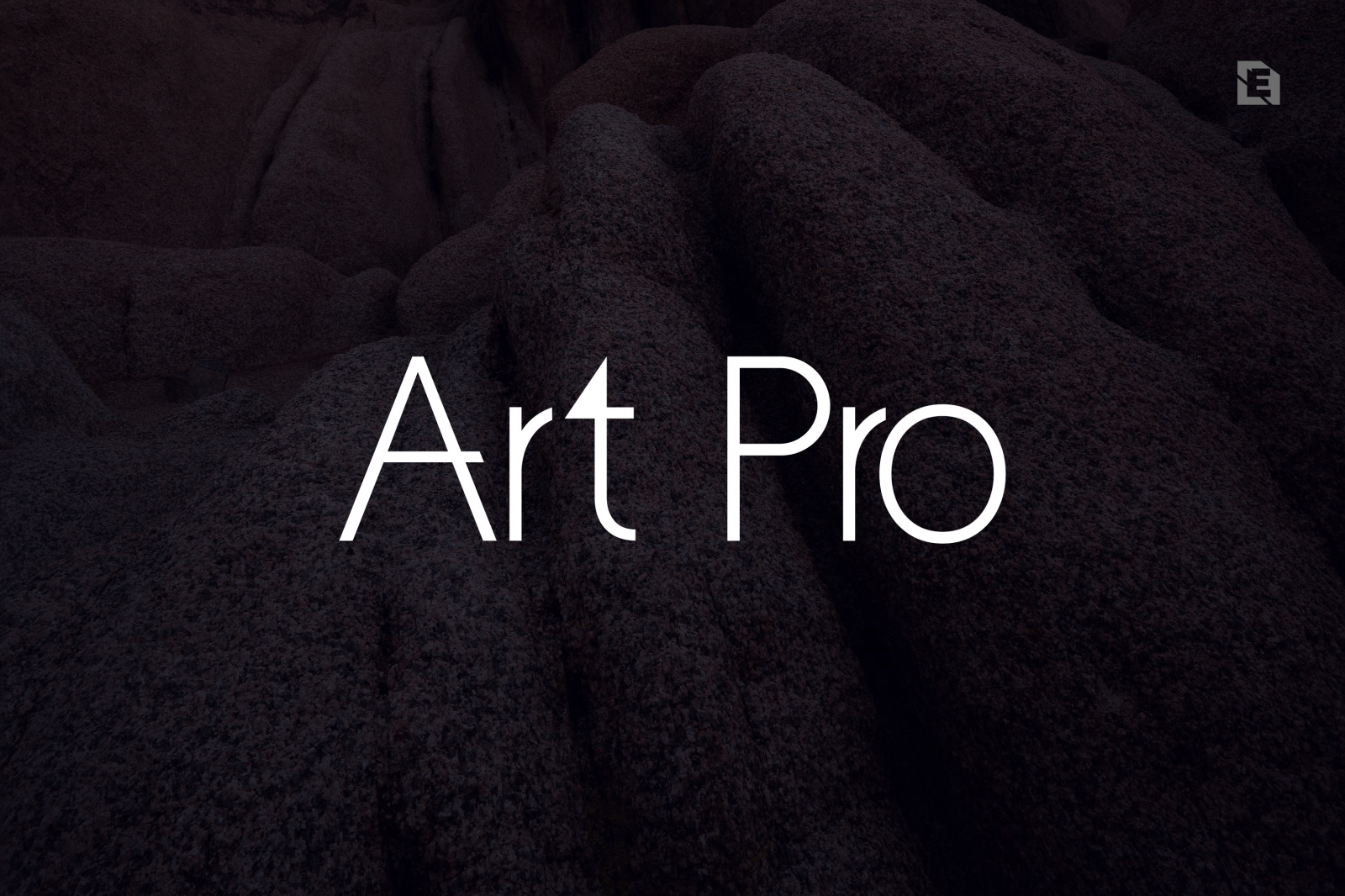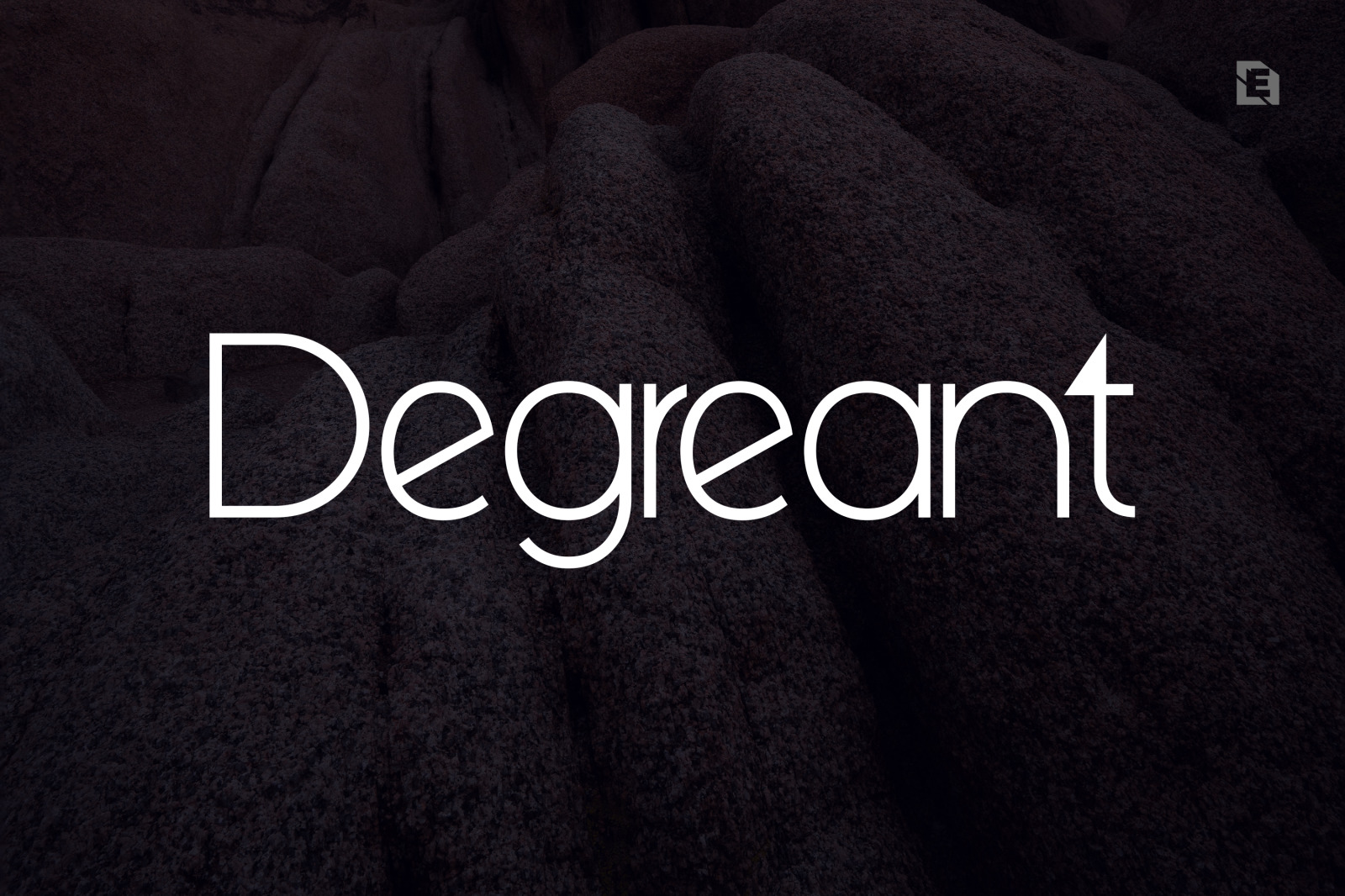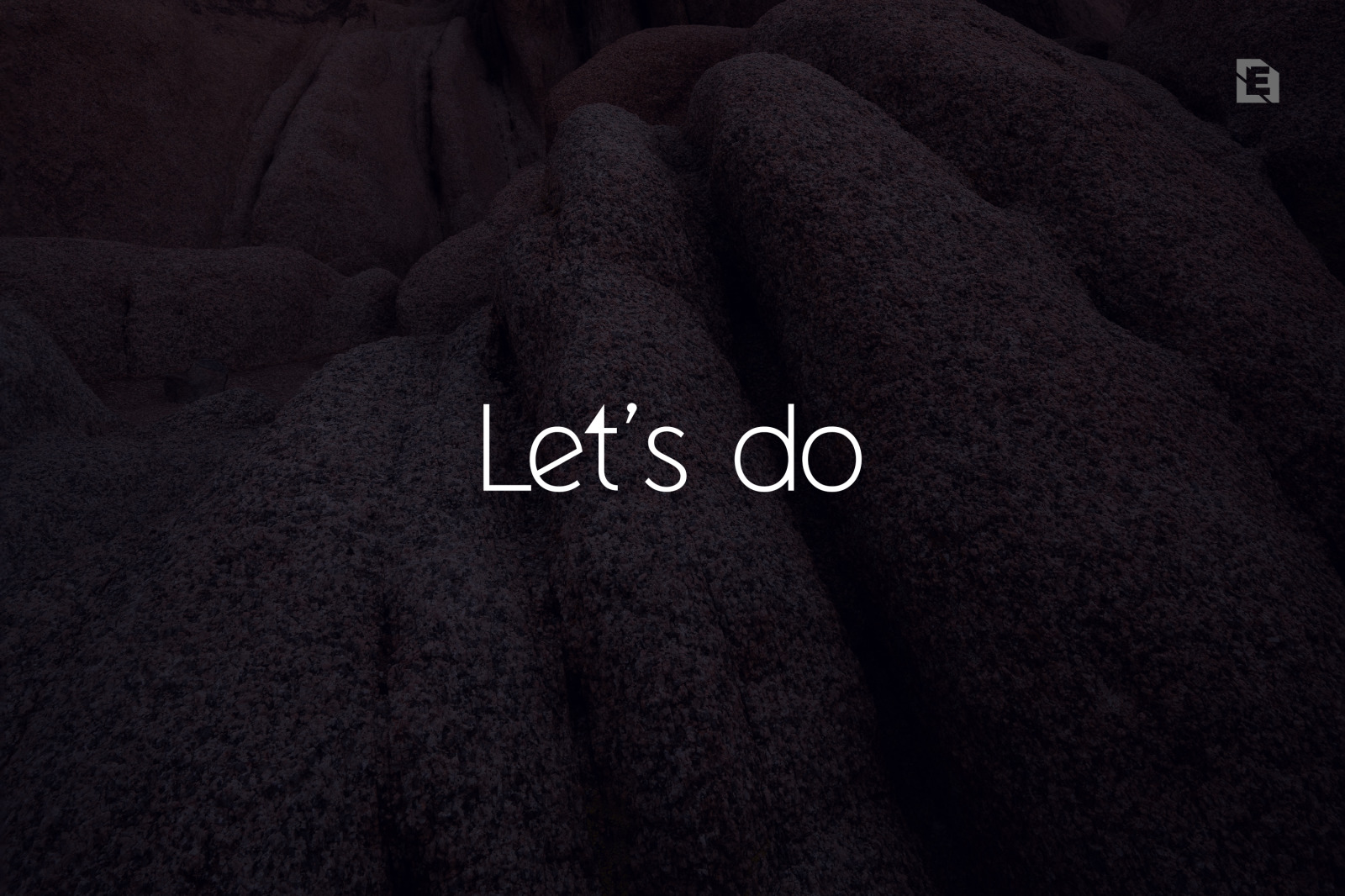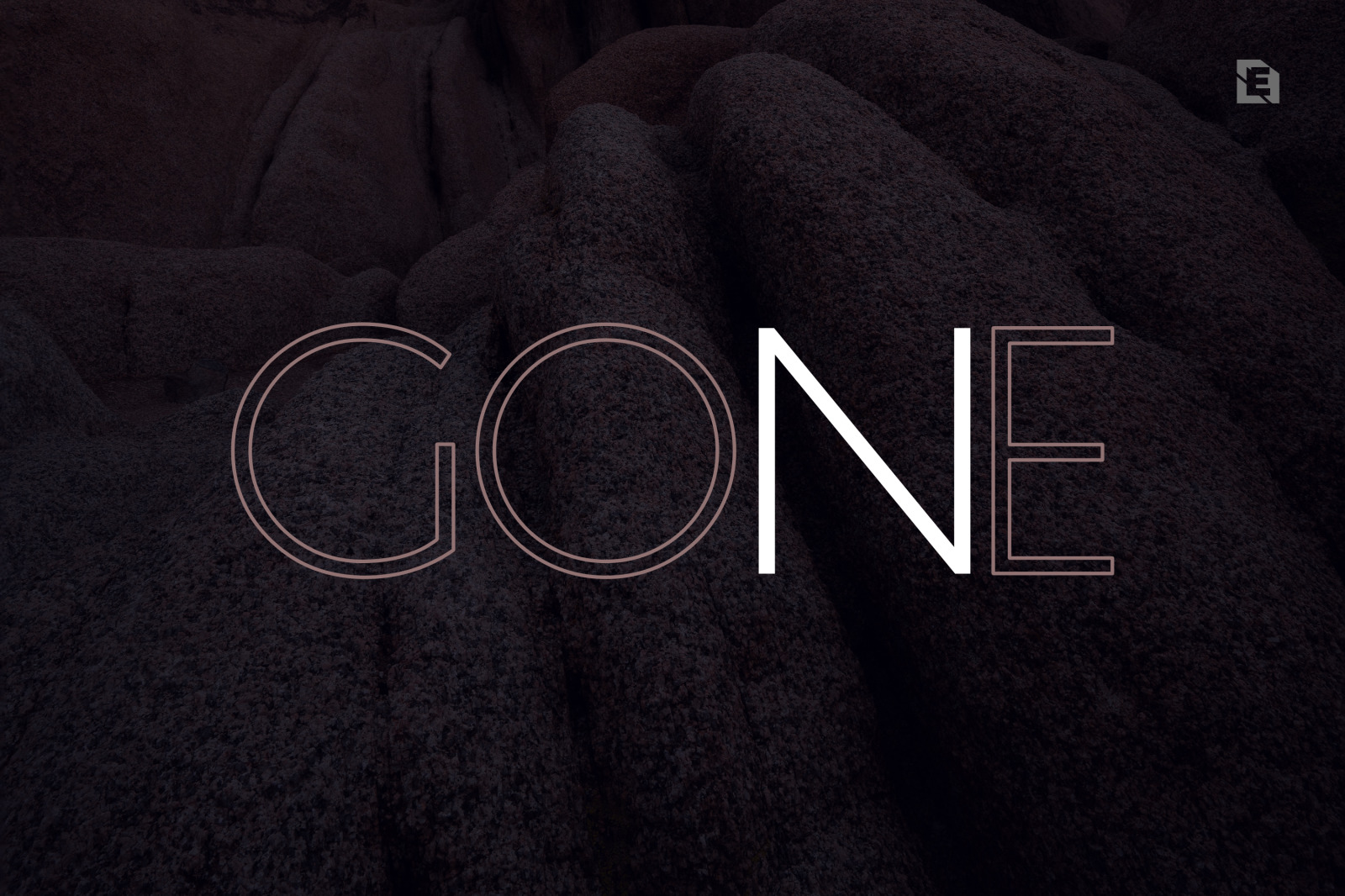
Art Pro Font
Art Pro is a minimal and neat sans serif font.Trendy or modern style regular sans font for your fancy projects. Bold, elegant, and retro style will be great for any branding project.
Art
Art pro Font is perfect for designs that need to have a traditional, antique feel while still being sleek and minimalist. It will look fantastic with any logo, product name, poster, or design.
It has little curves on some letters, which will be perfect for logos and branding projects. This font is intended for use as a display font. Art Pro has a versatile, bold yet playful design, allowing you to be creative with your projects.
Itβs great for fashion, clothing styles, signatures, album covers, magazines, social media, and advertisements, among other things. This font has 200 above glyphs and extensive Latin script support and upper and lowercase sans serif characters. Quinlan carries a powerful, unique, and social character line with a premium finish, giving a new impression.